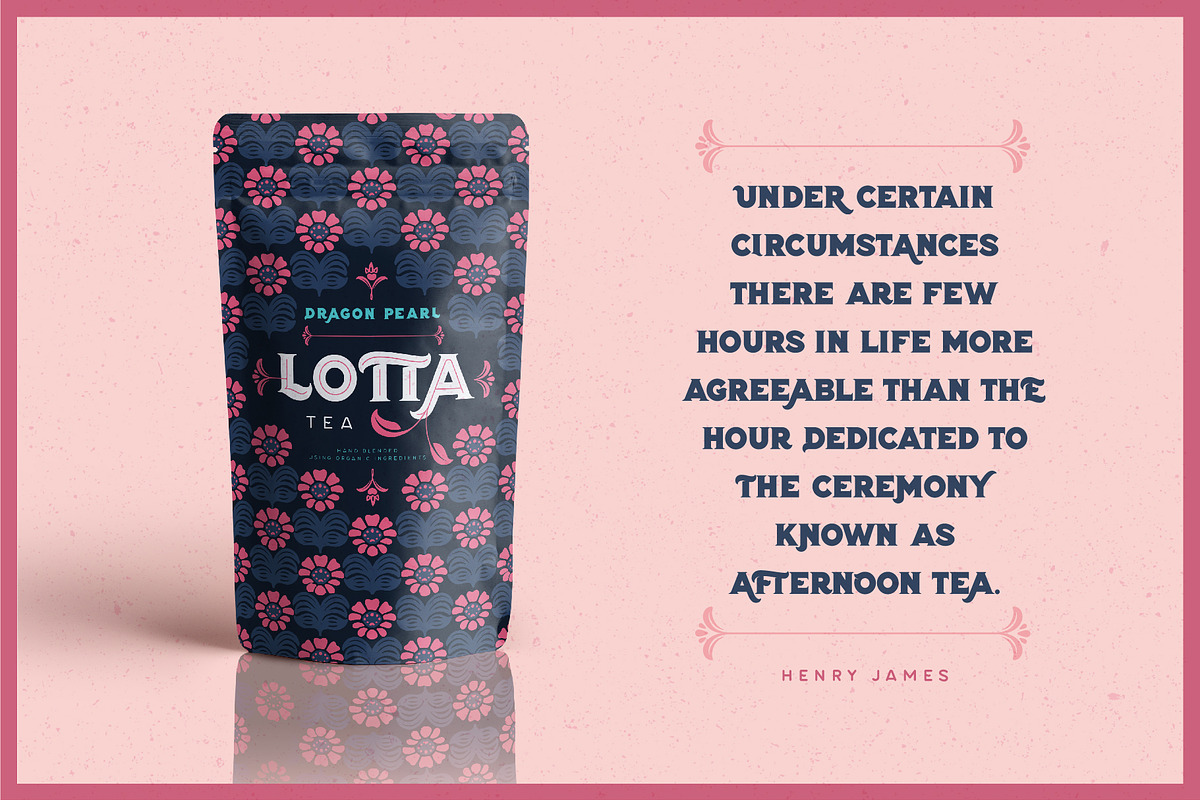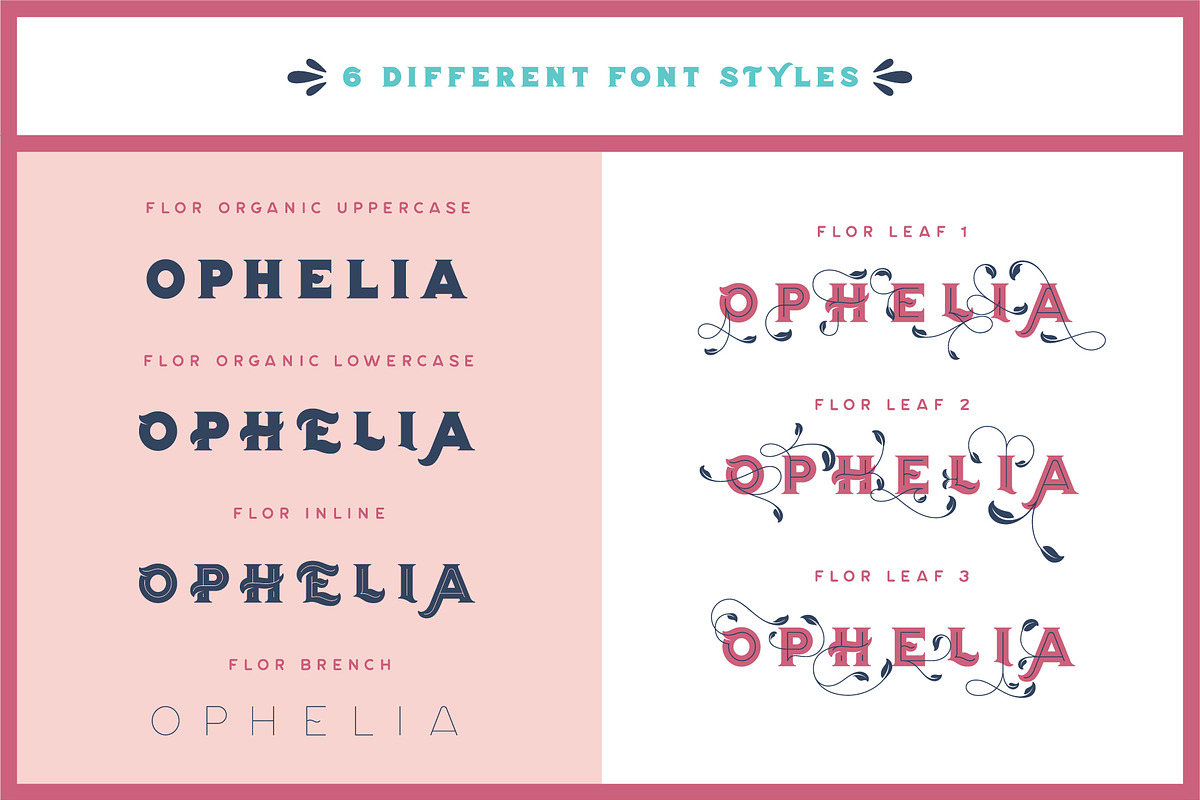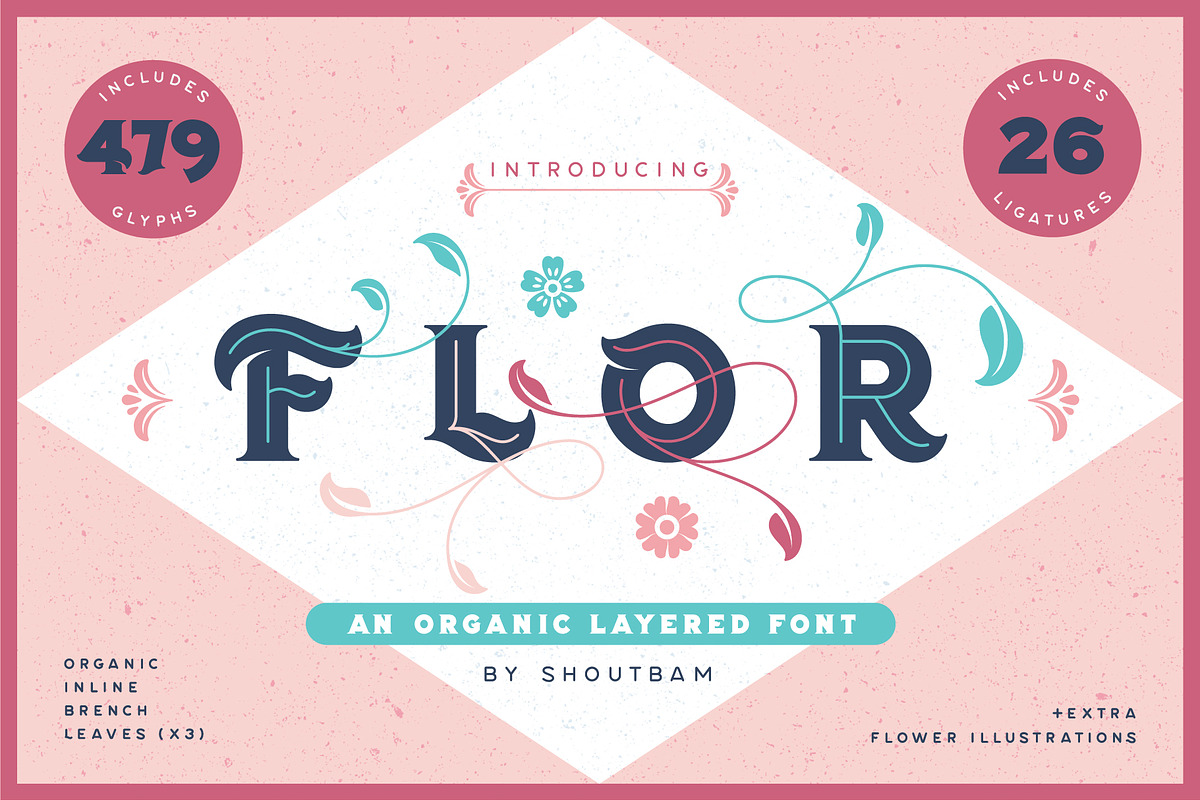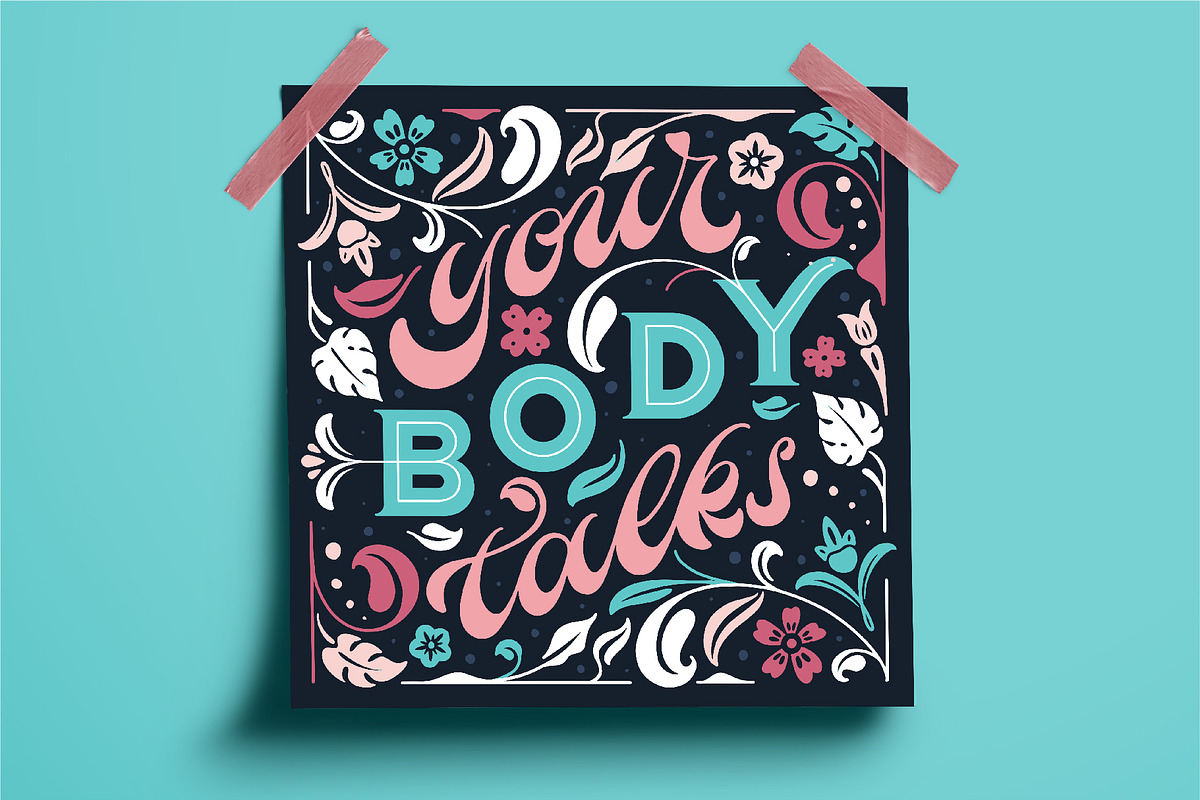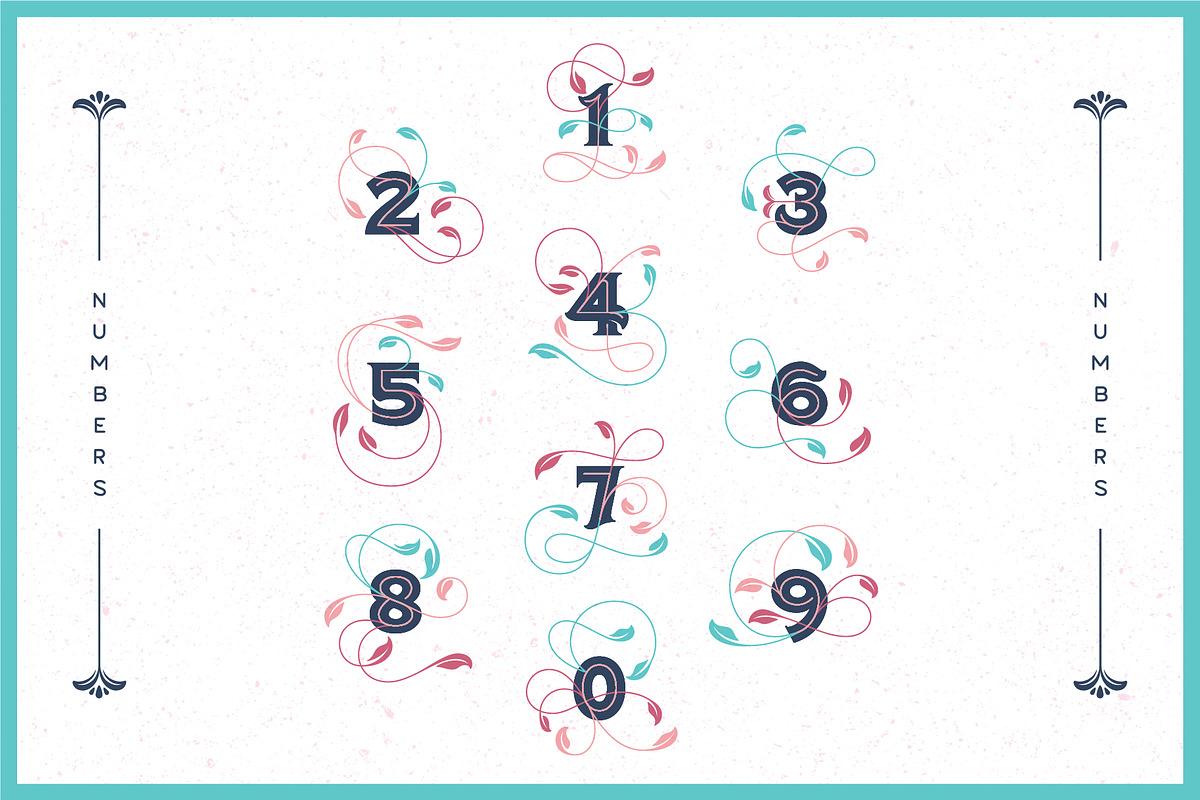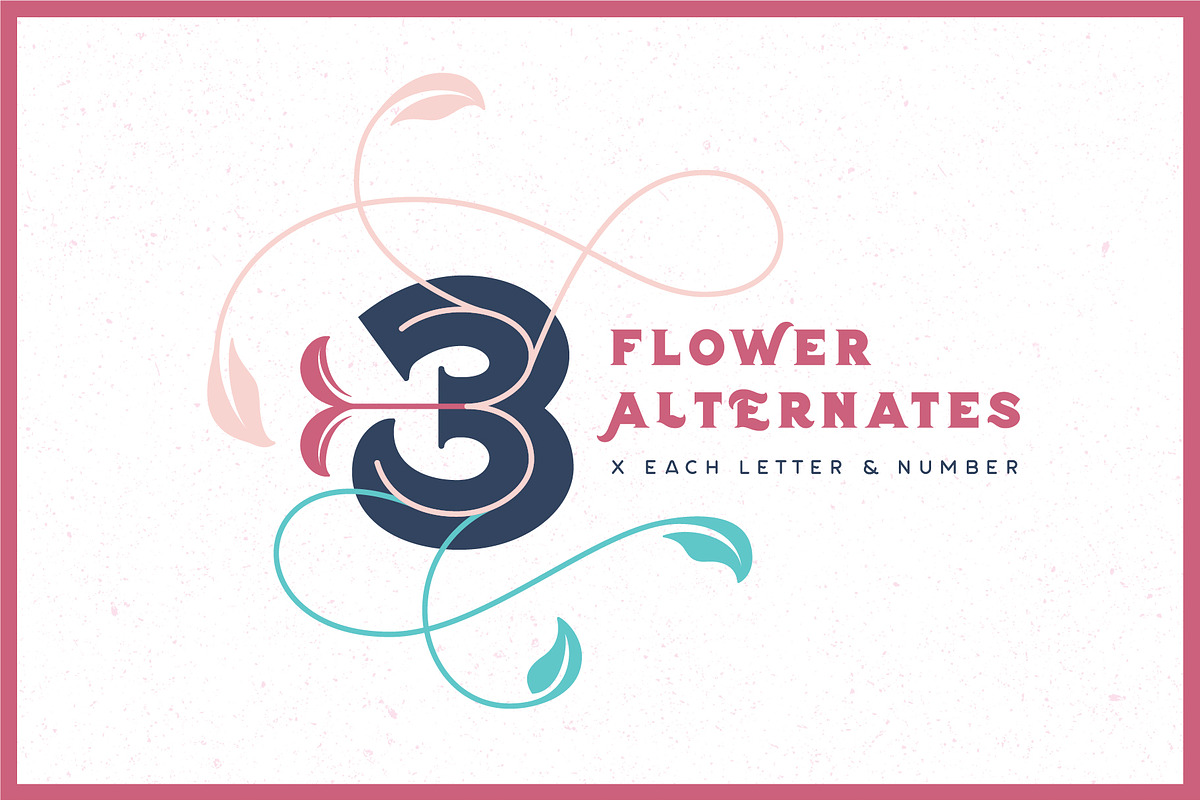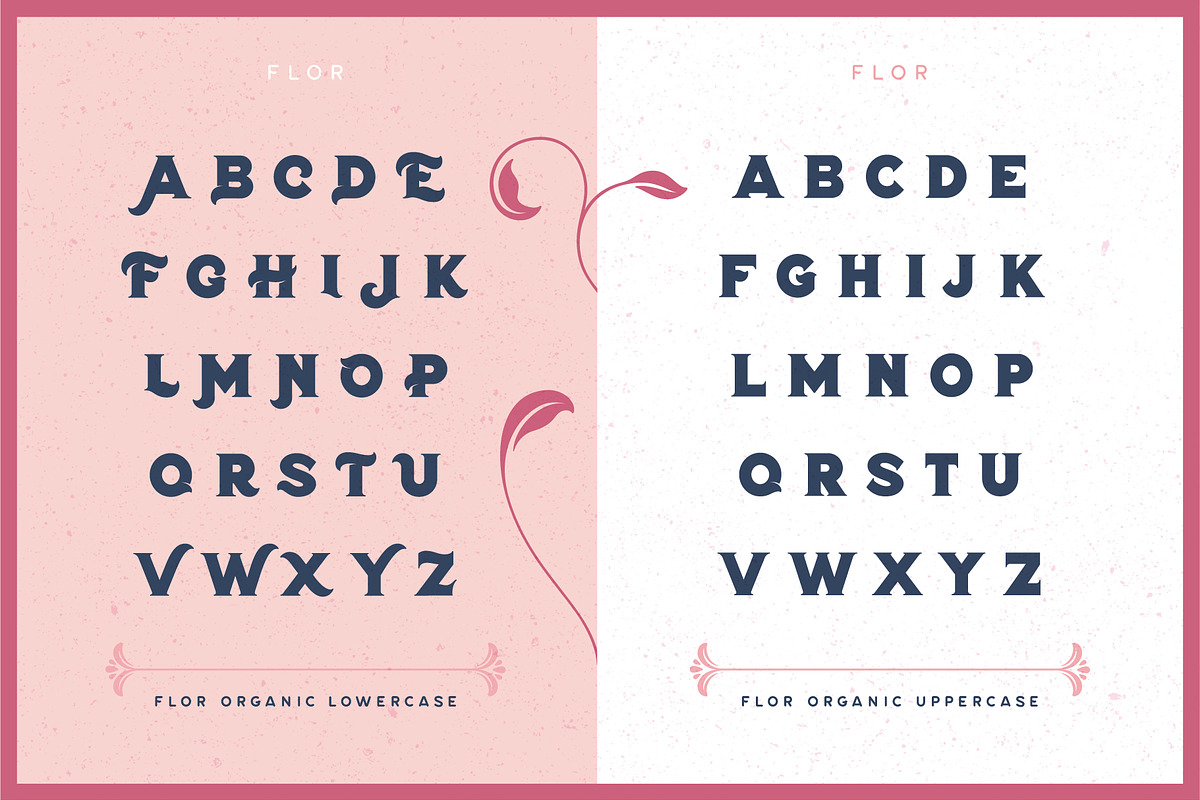
Flor Layered Font + Extras
Introducing Flor Font
6 Font Styles - Includes 479 Glyphs - 26 Ligatures - 28 Floral Ornament Illustrations
Say hi to beautiful Flor! An enchanting font for creating stunning artworks! With its thick body and charming florals, Flor is perfect for distinguished and graceful designs. Also, Flor looks amazing on branding projects, packaging and as big magazine headlines!
Each shape was primarily drawn by hand and has been carefully designed. Each letter has 3 alternates for creating the most attentive impressions. Their unique shapes can be used for various exquisite designs.
Together with the font we included 28 floral illustrations that complement the font and give an aesthetic touch.
Flor was created with great care and consideration for variety and usability.
- FLORAL ORNAMENTS Together with the font we included 28 floral illustrations that complement the font and give an aesthetic touch.
- Flor also includes full set of uppercase and lowercase letters, multilingual symbols, numerals and punctuation.
- FLOWER ALTERNATES Each shape was primarily drawn by hand and has been carefully designed.
- Each letter has 3 alternates for creating the most attentive impressions.
- Flor also includes full set of uppercase and lowercase letters, multilingual symbols, numerals and punctuation.